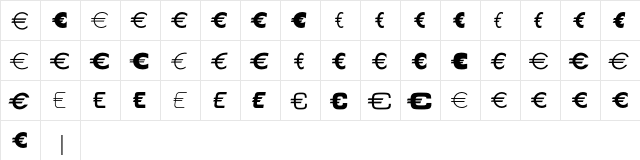
EuroSansEF Three
Design Context for EuroSansEF Typeface
EuroSansEF is a composed and adaptable typeface that performs quietly and consistently across a wide range of design contexts.